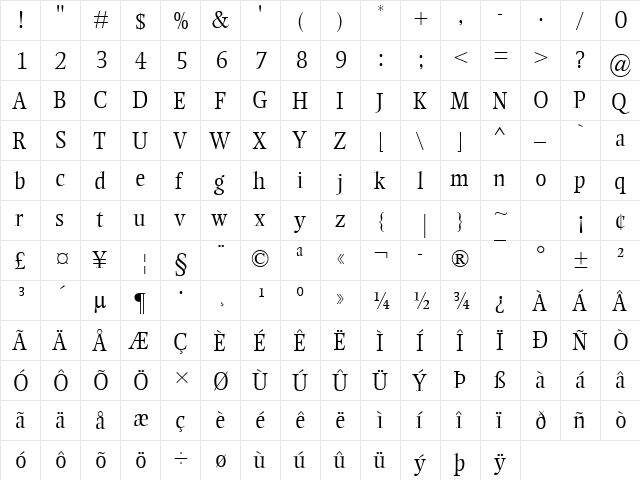
Ellington MT Light Regular
Design Context for Ellington MT Light Typeface
Ellington MT Light takes a measured approach to typography — its balanced proportions and neutral character make it a reliable workhorse for both digital and print work. Its slender proportions lend an understated elegance to any composition.